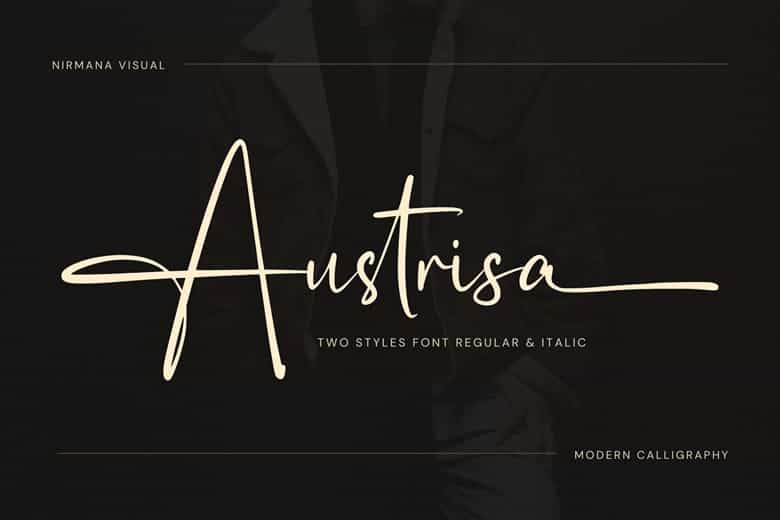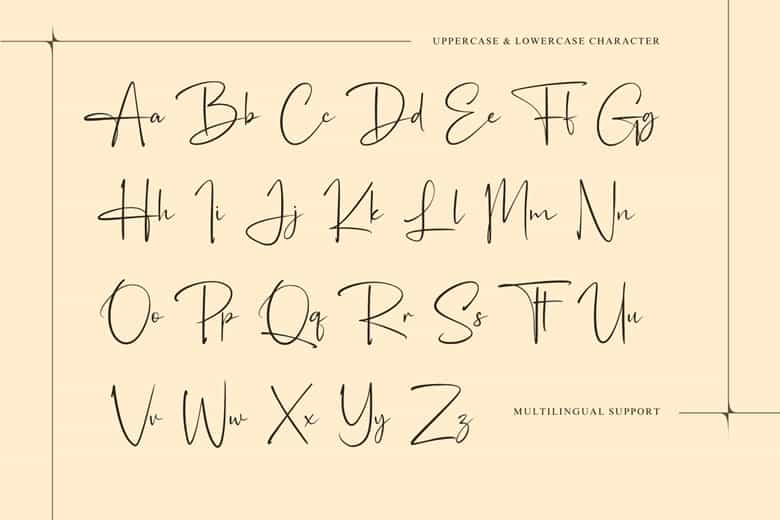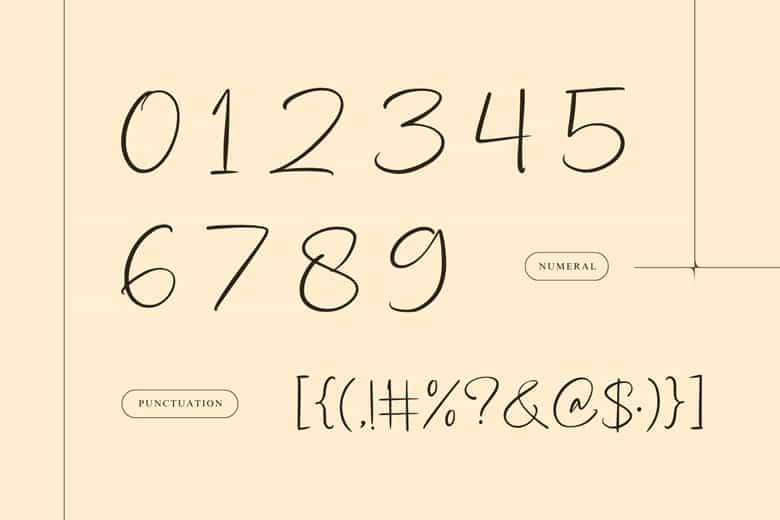
Austrisa is a modern script that slightly resembles handwriting signature that features very beautiful curves on the letters. It is perfect for wedding invites and high end logos. In regular and italic forms, it has special alternate swashes in lowercase letters giving elegant and calligraphic bends.